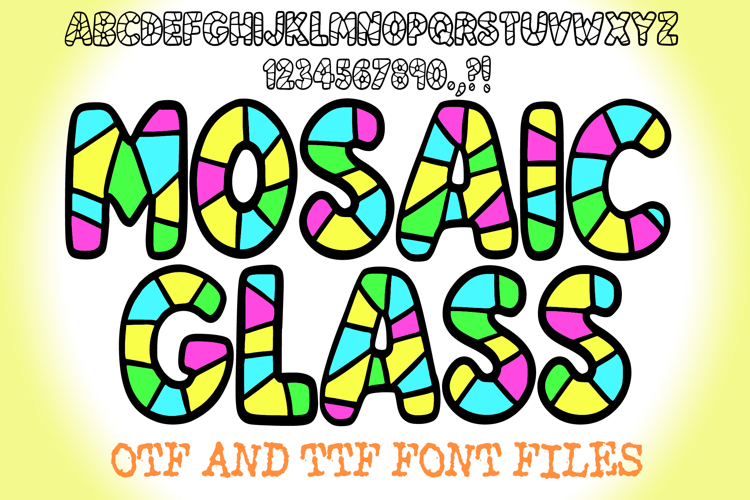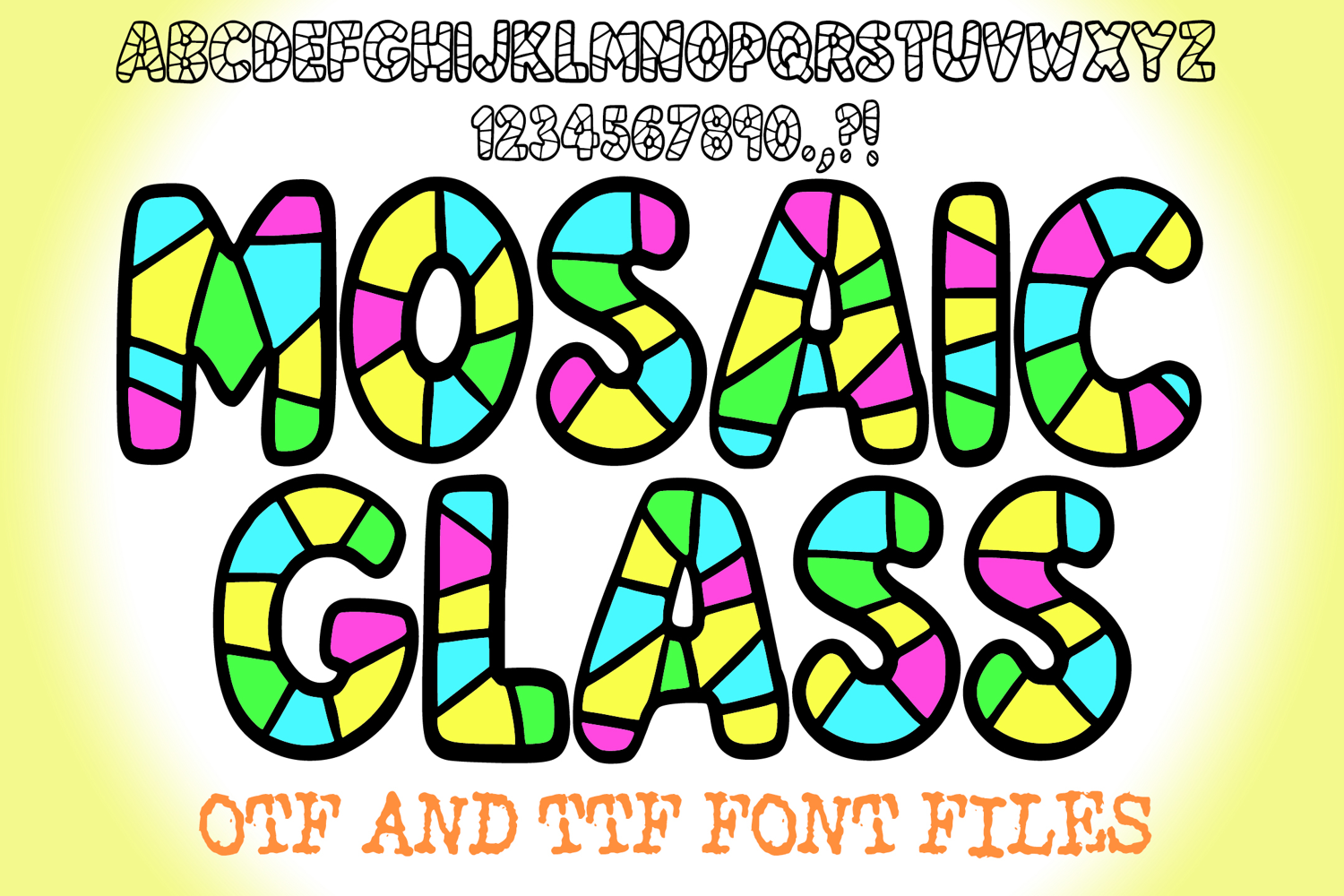
Introducing Mosaic Glass Font – a bold and playful display typeface inspired by the beauty of cracked glass, mosaic tiles, and stained-glass art. Each letter is designed with unique geometric fragments, giving your text a handcrafted and artistic look. Perfect for posters, logos, digital designs, Cricut and Silhouette projects, crafts, invitations, coloring pages, scrapbooking, and more.
This decorative font brings a creative broken-glass texture to your projects, making it ideal for DIY crafts, handmade products, kids’ designs, and artistic branding. Add a touch of fun and originality with Mosaic Glass Font – a versatile typeface that will stand out in any design.